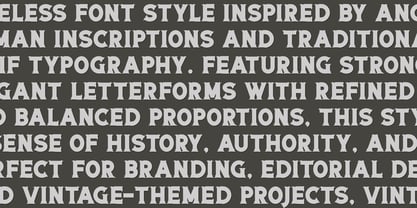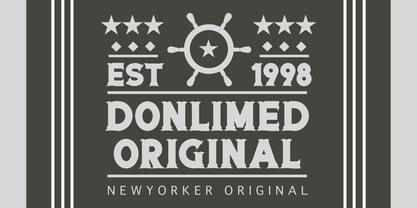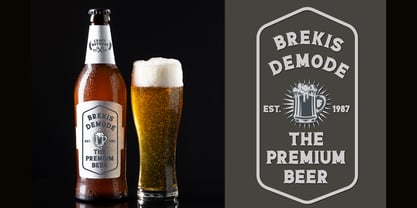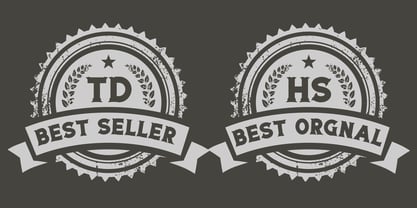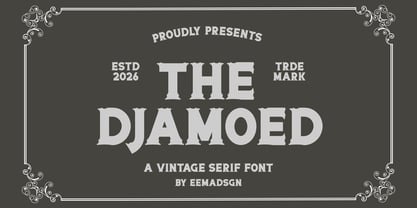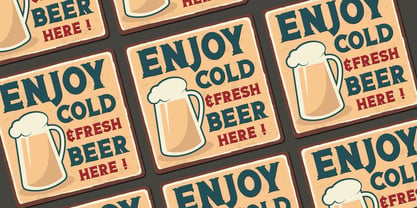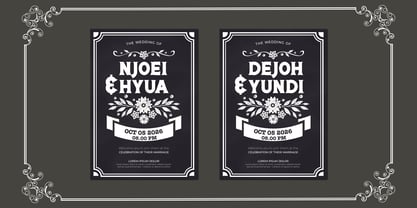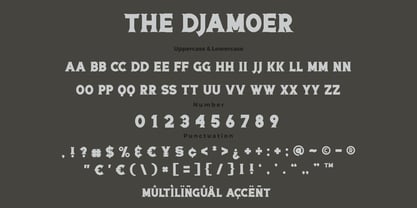
Djamoed
by Bayuktx
The Djamoed Font Family was designed by Bayu Aji Fais Mursid and published by Bayuktx. Djamoed contains 1 styles. More about this family
The Djamoed a Vintage Serif Font is a bold and timeless display typeface inspired by classic Roman lettering and vintage typography aesthetics. Featuring strong serifs, sharp edges, and structured letterforms, this font delivers a powerful and authoritative visual presence rooted in historical elegance. Designed with a classic vintage touch, The Djamoed brings a sense of tradition, craftsmanship, and sophistication. Its balanced proportions and distinctive character shapes make it perfect for creating designs that feel both nostalgic and premium. The font captures the essence of old-world signage, heritage branding, and Roman-inspired inscriptions with a modern refinement. Each letter is carefully crafted to maintain readability while preserving its bold decorative style, making it highly effective for impactful headlines and standout typography compositions. Perfect for both digital and print use, The Djamoed is ideal for projects that require a strong vintage identity, classic elegance, and timeless appeal. Key Features : * Uppercase & Lowercase Characters * Numerals & Punctuation * Multilingual Support * PUA Encoded & OpenType Features * Classic Roman Serif Style * Bold & Strong Letterforms * Vintage Decorative Elements Suitable For : * Vintage Branding & Logos * Posters & Headlines * Heritage & Classic Designs * Packaging & Product Labels * Barbershop & Retro Shops * Editorial & Print Design * Signage & Display Typography With The Djamoed a Vintage Serif Font, your designs gain a bold classical presence, refined vintage character, and a timeless Roman-inspired aesthetic — perfect for projects that aim to be strong, elegant, and rich in historical charm.
Designers: Bayu Aji Fais Mursid
Foundry: Bayuktx